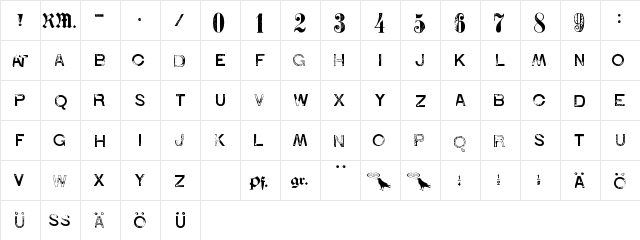
1938 STEMPEL Regular
Design Context for 1938 STEMPEL Typeface
1938 STEMPEL is a composed and adaptable typeface that performs quietly and consistently across a wide range of design contexts.